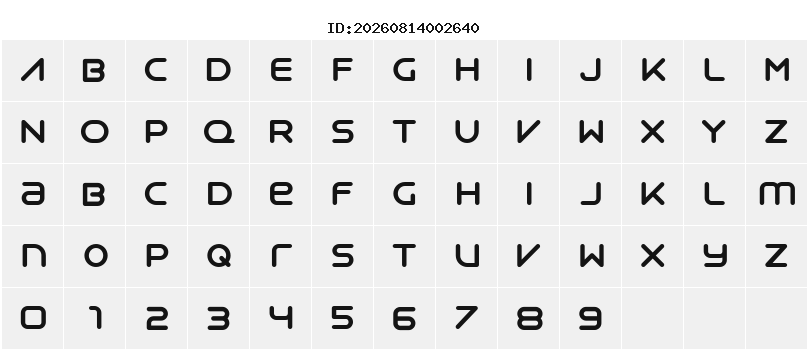
Syntha Preview
• Font Name: Syntha
• Full Font Name: Syntha
• Designer: Ivan Filipov
• Manufacturer: Ivan Filipov, neogrey creative
About Syntha.ttf
Syntha.ttf is a modern, elegant sans-serif font designed for ultimate readability and visual harmony. Perfect for branding, headlines, web design, and print materials.